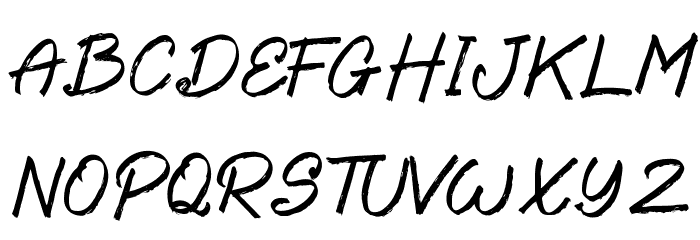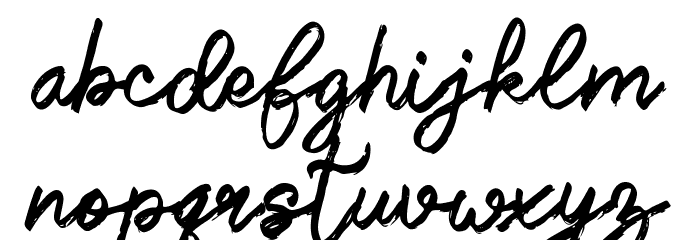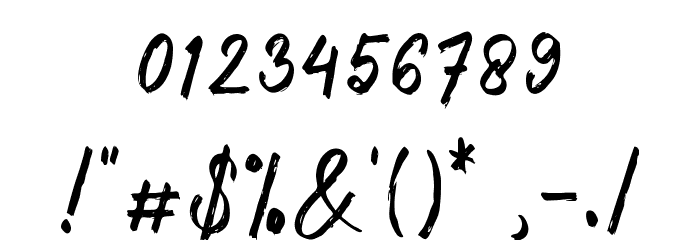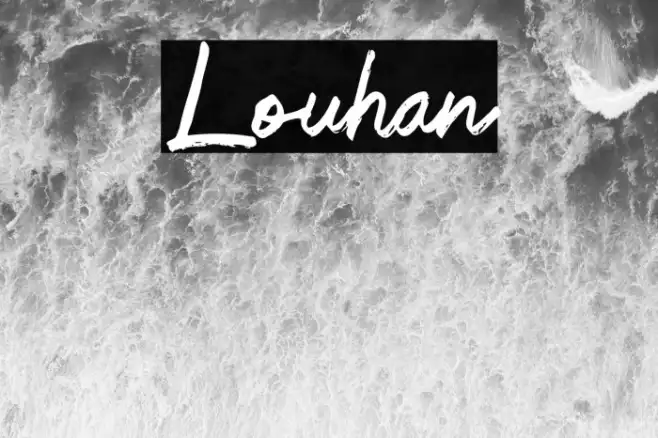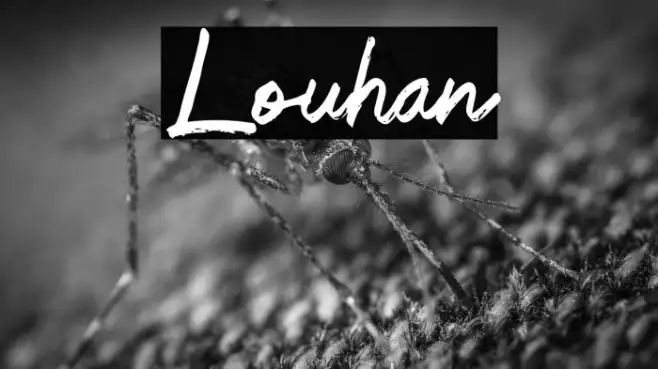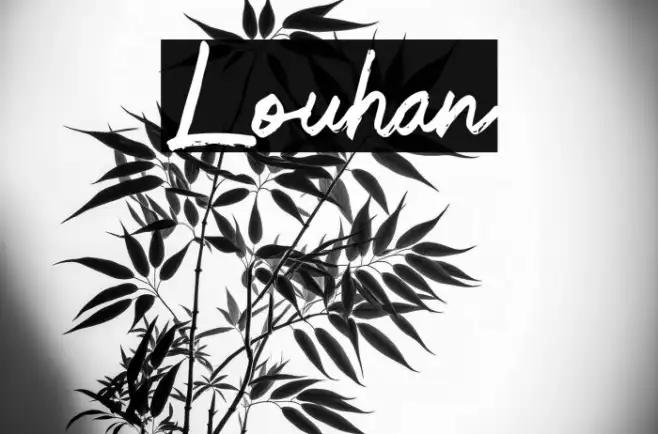
Louhan Font
This font features a dynamic and expressive script style, characterized by its fluid and cursive letterforms. The strokes are bold and slightly irregular, giving it a hand-drawn appearance that adds a personal touch to any design. The uppercase letters are elegantly connected, while the lowercase letters maintain a consistent flow, enhancing readability. Numbers and special characters are crafted with the same attention to detail, ensuring a cohesive look across all text elements. This font's unique style makes it stand out, perfect for projects that require a touch of creativity and individuality.
A bold, expressive script font with a hand-drawn, cursive style.
- Proposed Projects: Ideal for branding, invitations, greeting cards, and creative posters.
- Use Case: Logos, Headlines, Invitations